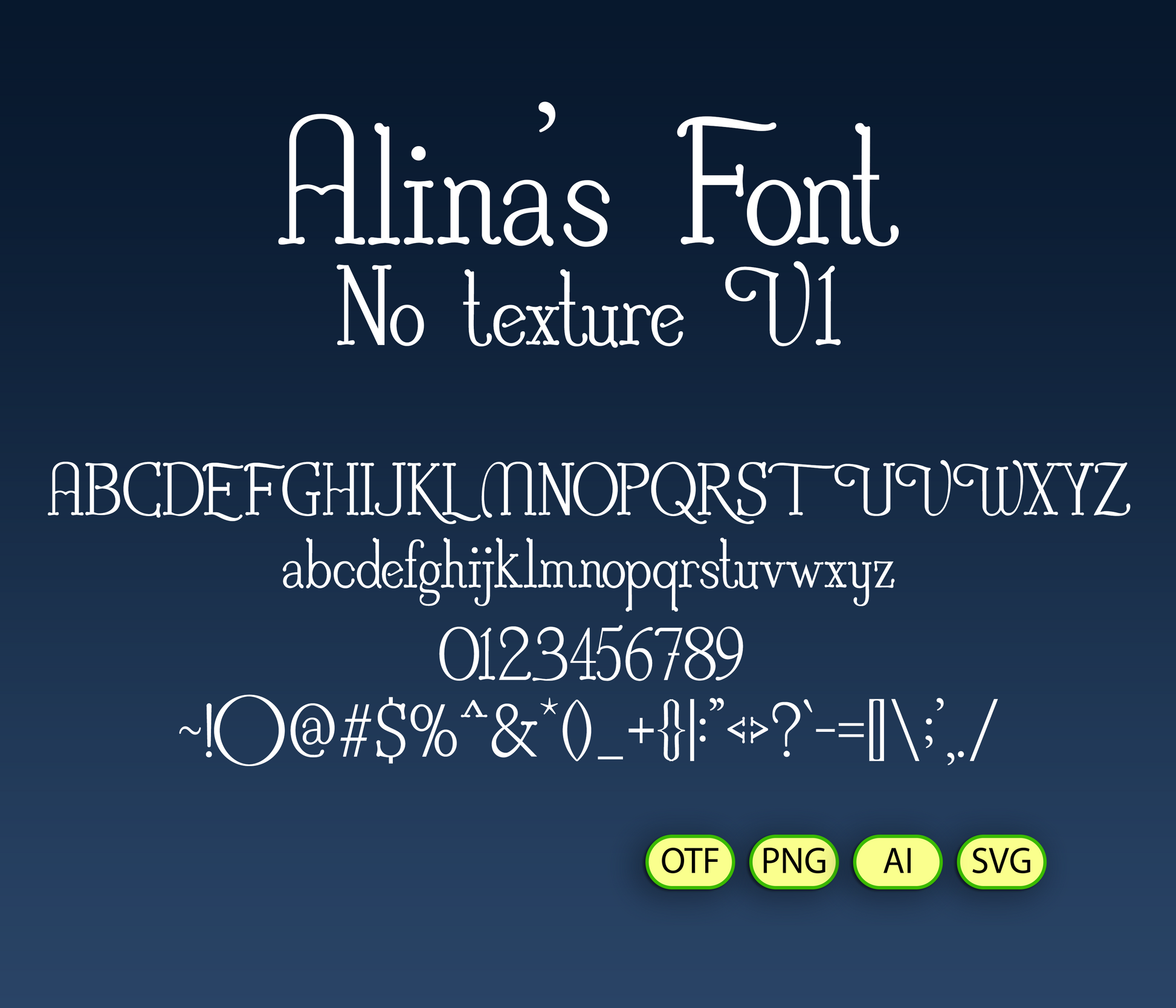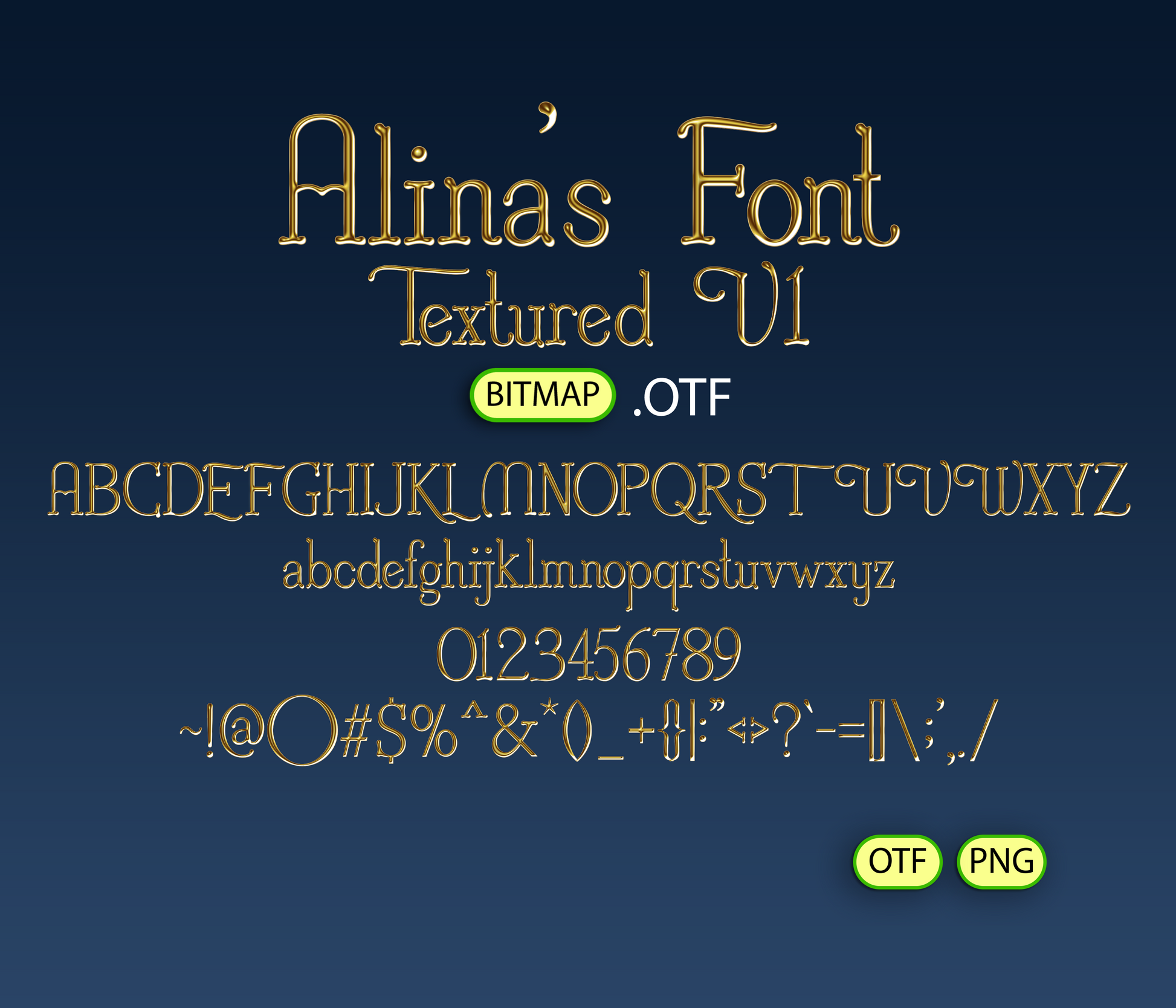
Rainbow Journey Font Textured
Step into the world of magical adventures with our Rainbow Journey font, capturing the essence of enchanted tales and whimsical quests. Perfect for fantasy creators, theater groups, party planners, and digital artists, this font brings storybook magic to your projects. Create fairytale invitations, emerald city decorations, or enchanted content with the timeless charm of ruby shoes and yellow brick roads.
Our Rainbow Journey font features whimsical, magical lines and enchanted characters reflecting the wonder of fantasy adventures. Ideal for:
1. Theater Magic: Design captivating playbills, tickets, and promotional materials for storybook performances.
2. Fantasy Events: Create rainbow-inspired invitations, silver shoe signs, and themed party decorations.
3. Digital Wonder: Enhance fantasy websites, magical social media content, and emerald-themed digital projects.
4. Children's Materials: Perfect for adventure books, educational resources, and magical learning activities.
5. Themed Projects: Ideal for poppy field crafts, rainbow path decor, and scarecrow party elements.
Our Rainbow Journey font includes textured and non-textured variants, ensuring compatibility with all software, including popular design platforms. This feature allows easy incorporation into designs for users of all skill levels.
Our font pays tribute to the journey beyond the rainbow, empowering your designs with its whimsical and courageous spirit. Whether crafting fantasy materials, designing theatrical merchandise, or adding magical charm to special projects, this font communicates storybook wonder. Ready to follow the yellow path to creative success? This font is your key to enchanted design.